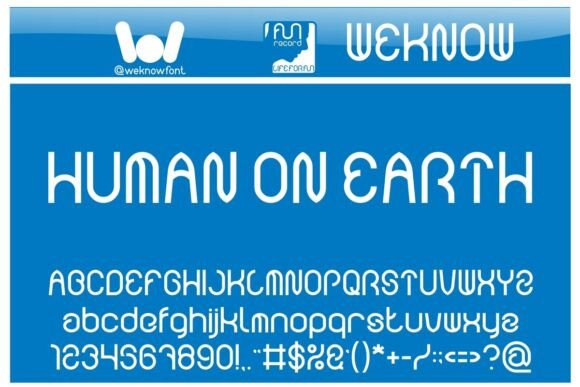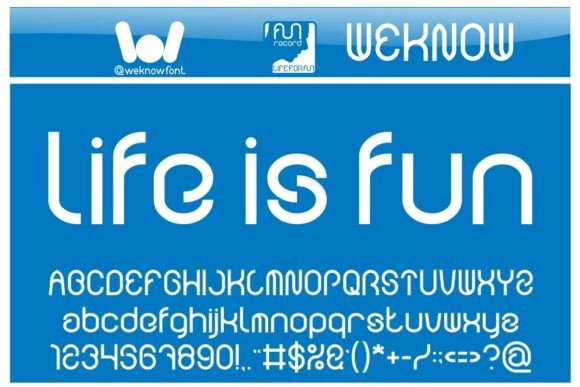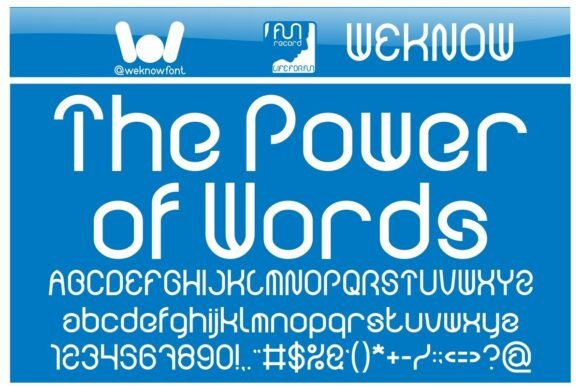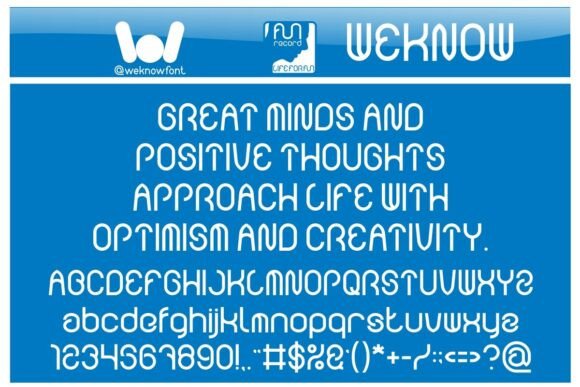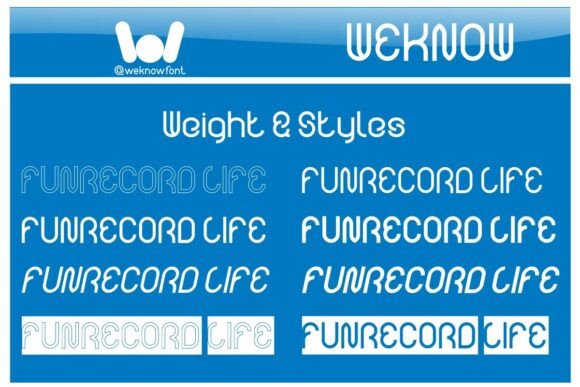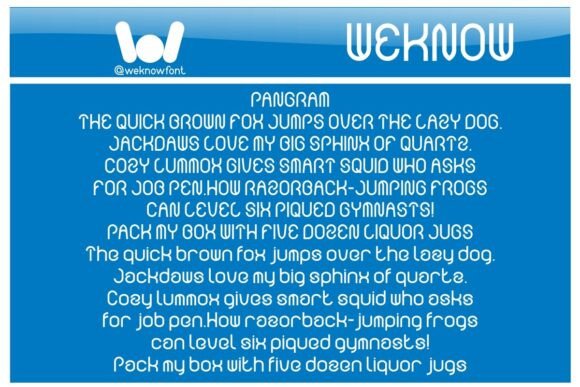
Unleash the Future with Funrecord Life Font
In the realm of typography, few fonts have managed to capture the essence of a futuristic, high-tech world as effectively as the ‘Funrecord Life’ font. This innovative techno-sci-fi font is designed to bring a modern and robotic nuance to your designs, making it incredibly adaptable for a wide array of uses. Whether you’re looking to immerse your corporate and brand identities in a futuristic aura or infuse your apparel designs with a vibrant, machine-friendly personality, ‘Funrecord Life’ is the perfect choice.
Ideal for Headlines and Logotypes
‘Funrecord Life’ is specifically designed to make your content electrifyingly memorable, making it ideal for headlines and logotypes. Its unique and futuristic design ensures that your message stands out in a crowded digital landscape. With this font, you can create visually stunning headlines that capture the attention of your audience and leave a lasting impression.
The versatility of ‘Funrecord Life’ makes it suitable for a wide range of design projects. Whether you’re designing for music, movies, games, or publications—from magazines to comic books—this digital display font fits perfectly. Its futuristic design ensures that your content looks modern and engaging, making it perfect for:
- Music albums and singles
- Movie and game titles
- Magazines and comic books
- YouTube and Instagram content
- Bespoke website designs
Elevate Your Brand Identity
‘Funrecord Life’ offers a unique visual appeal that can elevate your brand identity and set you apart from the competition. Its modern and robotic nuances make it perfect for:
- Corporate branding and logos
- Apparel designs and merchandise
Key Features of Funrecord Life Font
So, what makes ‘Funrecord Life’ stand out from other fonts? Here are some of its key features:
- Unique and futuristic design
- Modern and robotic nuances
- Incredibly adaptable for various design projects
- Ideal for headlines and logotypes
- Perfect for music, movies, games, and publications
Tips for Using Funrecord Life Font
To get the most out of ‘Funrecord Life’, here are some tips for using this amazing font:
- Use it for headlines and logotypes to make a lasting impression
- Experiment with different colors and effects to enhance its futuristic design
- Pair it with other fonts to create a unique visual identity
- Use it consistently across various design projects to establish a strong brand identity
In conclusion, ‘Funrecord Life’ is an innovative techno-sci-fi font that can unleash the future of your designs. Its unique and futuristic design makes it perfect for a wide range of design projects, from corporate branding to apparel designs. With its modern and robotic nuances, ‘Funrecord Life’ is sure to make your content electrifyingly memorable. So, why wait? Download ‘Funrecord Life’ today and take your designs to the next level!